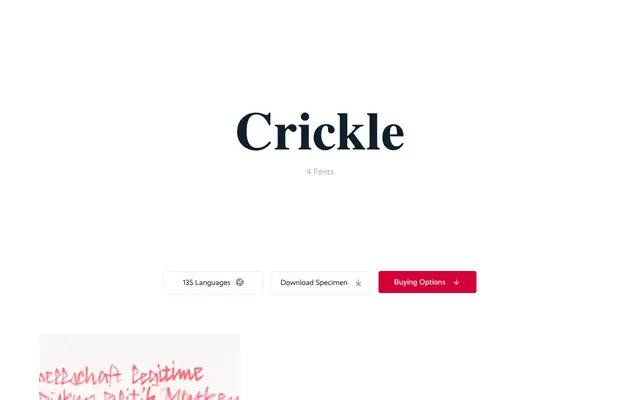
Crickle
Supertype · Jürgen Huber
A roughened handwriting script by Jürgen Huber that captures the swept, zigzagging gesture of left-slanted pen writing across four weights.
Based on experimental handwriting with a visible left slant, Crickle uses roughened outlines and uninterrupted letterforms to maintain the energy of a writing tool. Glyph alternates emulate hasty scribbles, and a scribble-out OpenType feature lets users cover text as if crossing it out by hand. A companion font, Crickle SPINE, provides contour-only paths for use with brushstrokes and calligraphic lines in Illustrator, and is included free with any weight purchase.
Crickle is a handwriting script based on experimental left-slanted writing with connected zigzag strokes and roughened outlines, emulating the gestural quality of handwritten scribble.